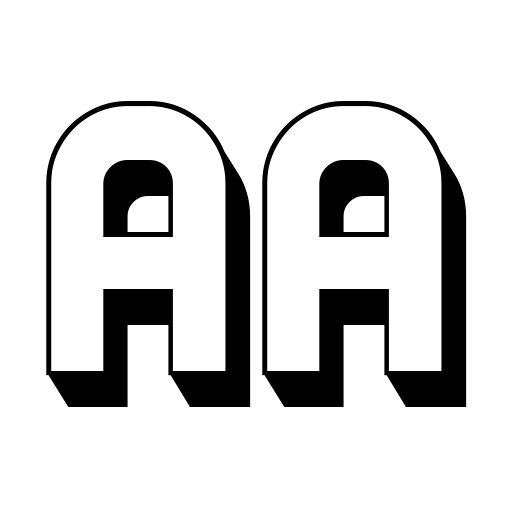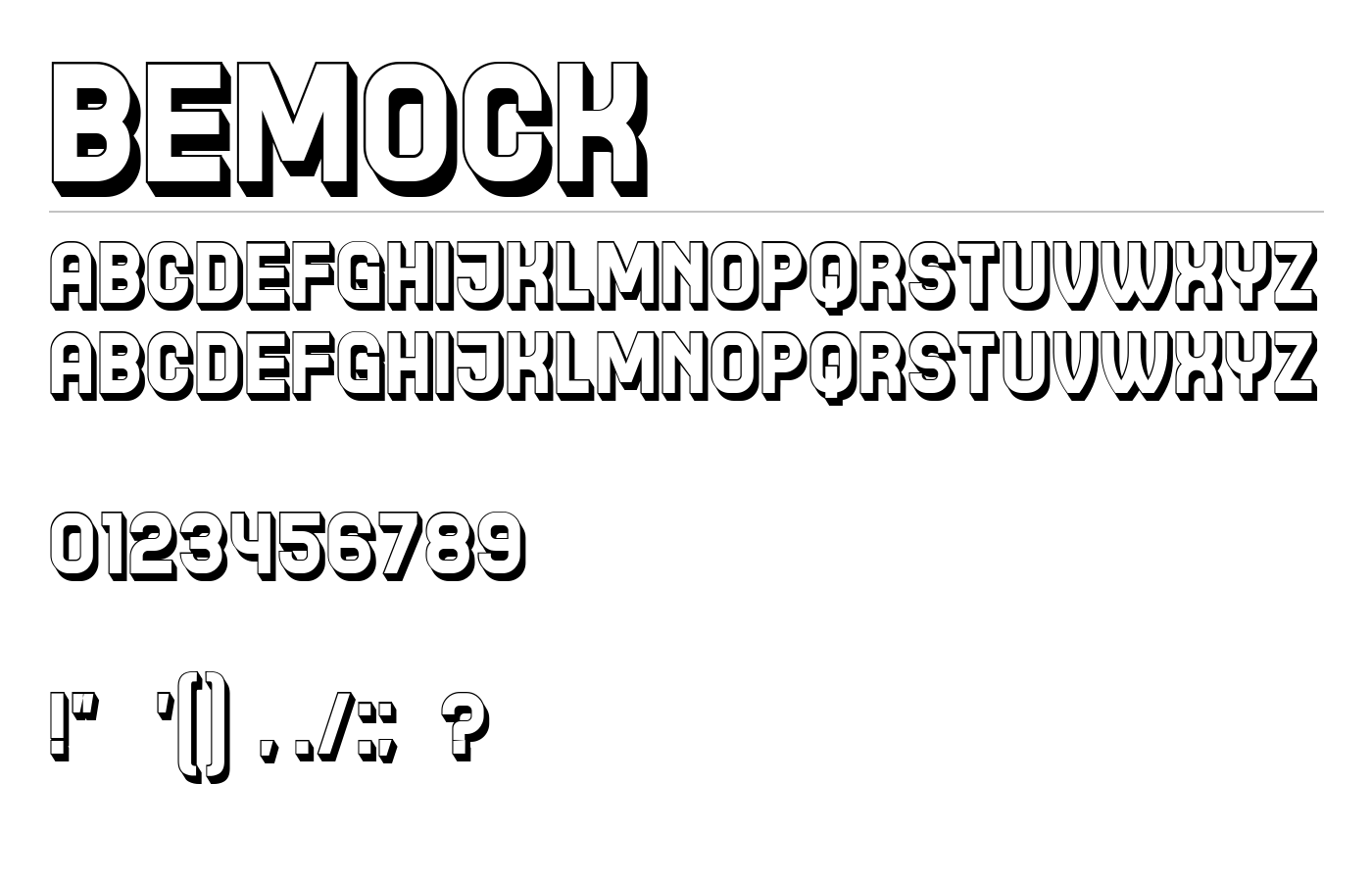
Bemock is a bold, condensed sans-serif font with a strong 3D shadow effect that gives it a dynamic and retro vibe. Its uppercase-only design features geometric shapes with clean lines and a playful yet sturdy presence, making it ideal for eye-catching headlines, posters, and branding where a statement look is needed. This font works well for designs that aim to be energetic and memorable, adding a touch of vintage charm with modern impact.
Bemock Font
About Bemock Font